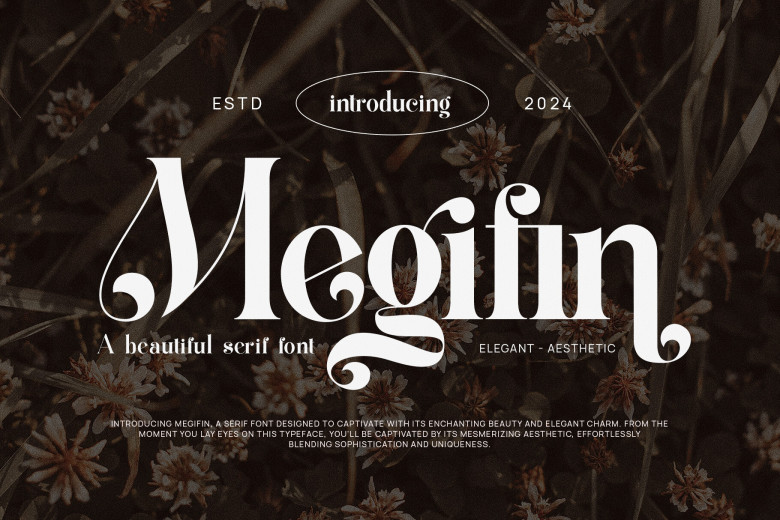
Megifin Font
Megifin is a stylish and sophisticated serif typeface with classic elegance, boasting meticulously designed letterforms that exude classic beauty. Perfect for projects that demand classic looks. Megifin exudes quality and distinction while adding style and distinction to designs with stylish elegance.
Inspired by minimalist logo design, this font can help to enhance brochures, videos, advertisements, branding logos, invitations designs for layouts beautiful design crafting and many other applications.
Megifin Serif Font